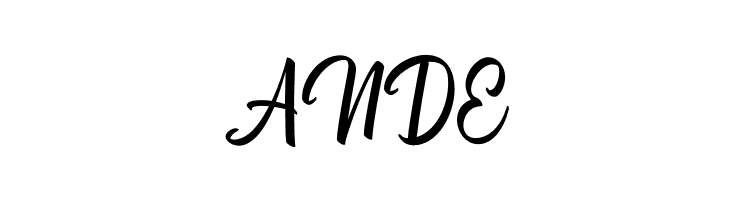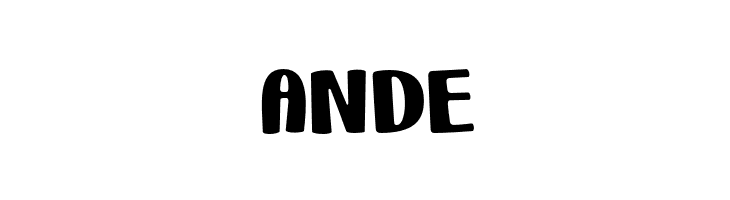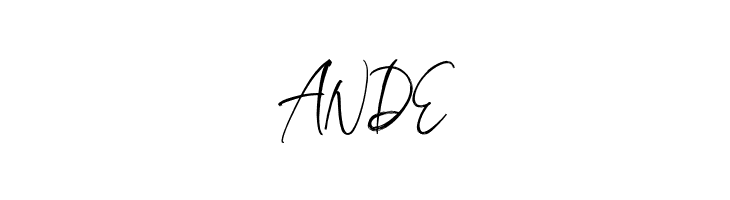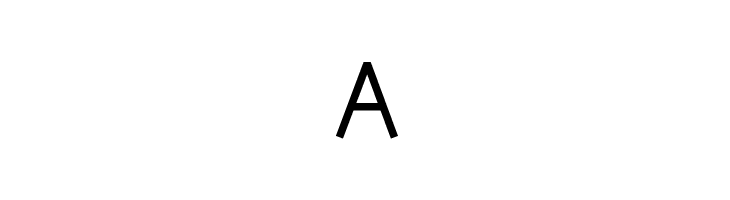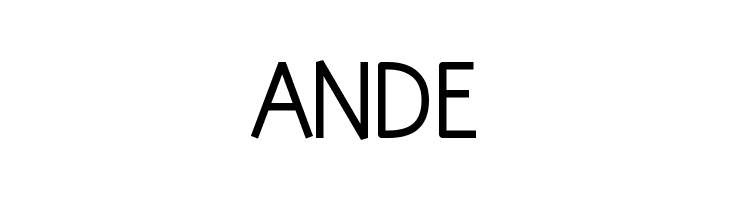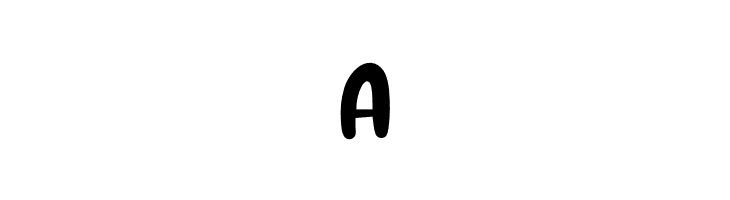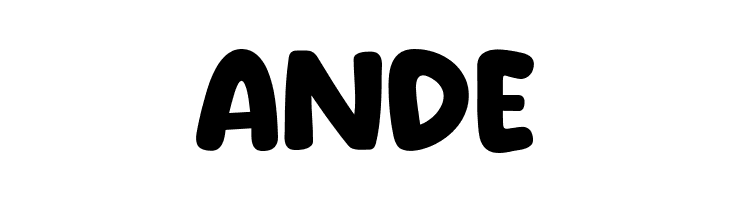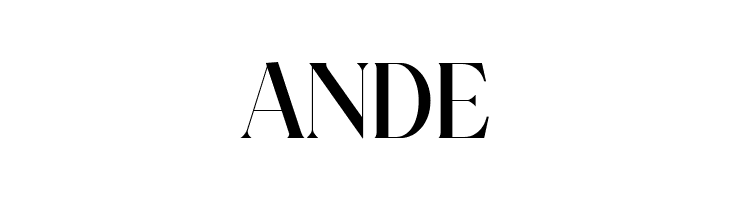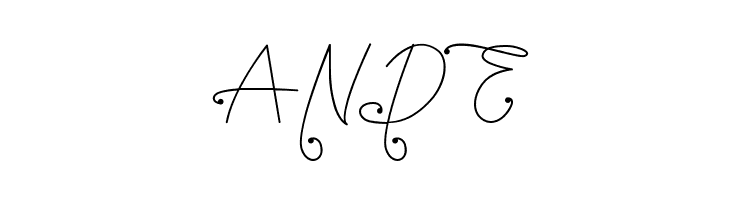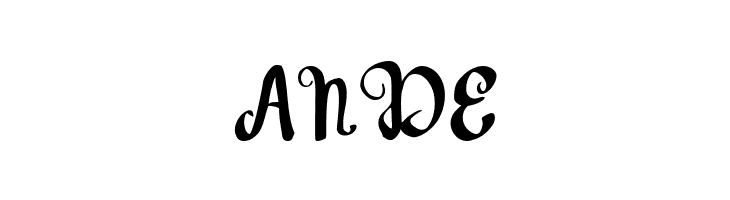
A rugged, distressed font with a bold, stone-like texture.
A modern script font with elegant, flowing cursive strokes.
A bold, expressive script font with flowing, cursive letterforms.
An elegant, flowing script font with a handwritten style.
A cursive, handwritten style font with elegant, flowing strokes.
A geometric, digital-inspired font with a blocky, modular design.
A modern sans-serif font with clean lines and uniform strokes.
A modern, sans-serif font with smooth, rounded edges and uniform stroke width.
A bold, decorative font with a dripping effect, ideal for spooky themes.
A bold, geometric stencil font with angular, fragmented strokes.
A modern, geometric font with a sleek and uniform design.
A modern, geometric font with clean lines and a structured appearance.
A bold, modern font with geometric shapes and rounded corners.
A modern, geometric font with clean, open lines and a hollow interior.
A geometric, outlined font with a modern, technical style.
A playful, rounded font with a bold and friendly style.
A bold, playful handwritten font with heart-shaped accents and smooth curves.
A bold, playful handwritten font with a dynamic and friendly style.
A bold, playful font with a comic-like, textured design.
A bold, hand-drawn font with a textured, doodle-like pattern.
A playful, bold font with rounded characters and a whimsical charm.
A bold blackletter font with a gothic, medieval style.
A playful, cursive font with dynamic curves and artistic flair.
A lively, flowing script font with a handwritten style.
A graceful script font with elegant swirls and high contrast strokes.
A modern, flowing script font with dynamic and elegant characteristics.
A playful, bold font with rounded, thick strokes and a whimsical touch.
A playful, bold font with rounded, bubbly characters perfect for creative projects.
A high-contrast, elegant serif font with sharp serifs and modern styling.
A bold, dynamic brush-style font with expressive strokes and artistic flair.
A flowing, elegant script font with intricate loops and swashes.